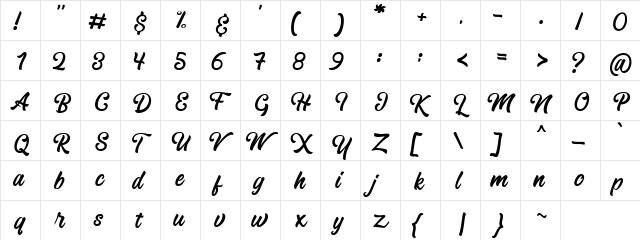
Blanchope Regular
| Designer | Egi Ahmad Mufid |
Design Context for Blanchope Typeface
Blanchope is a composed and adaptable typeface that performs quietly and consistently across a wide range of design contexts.